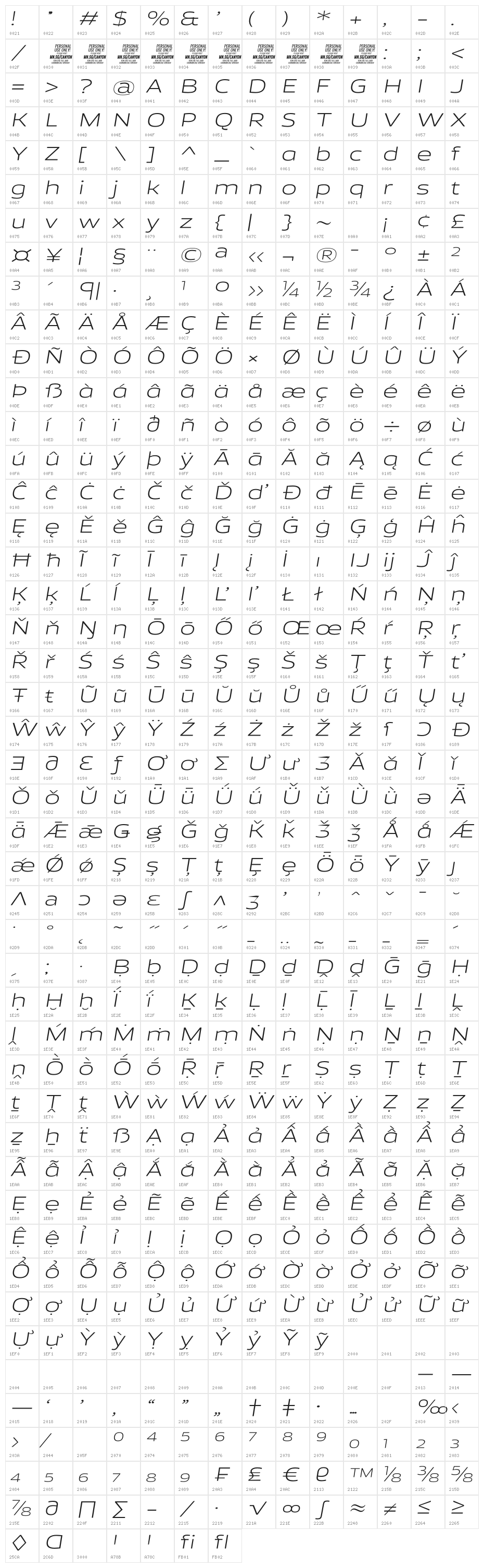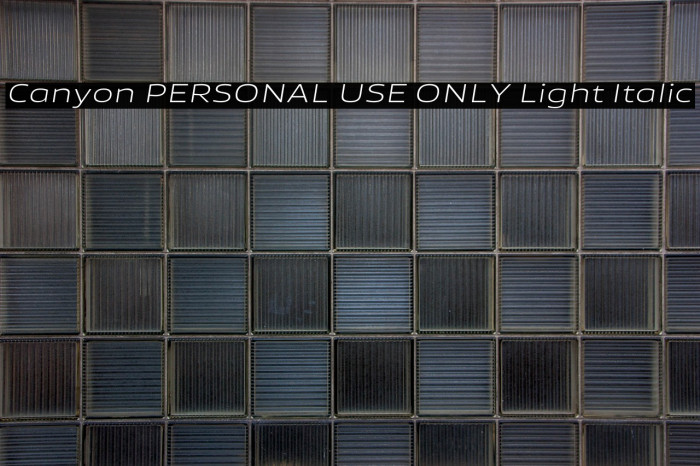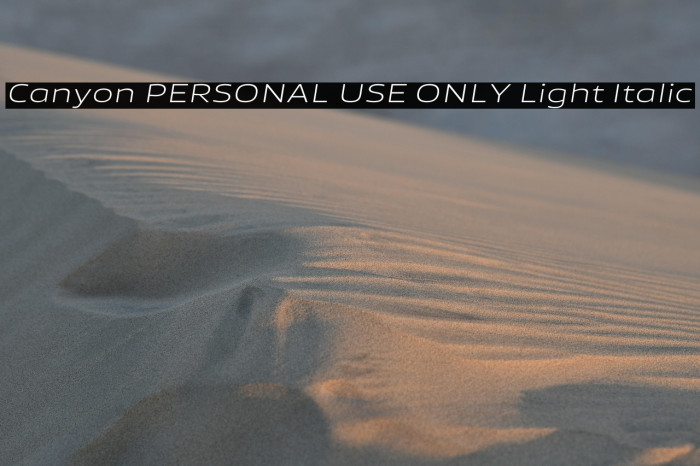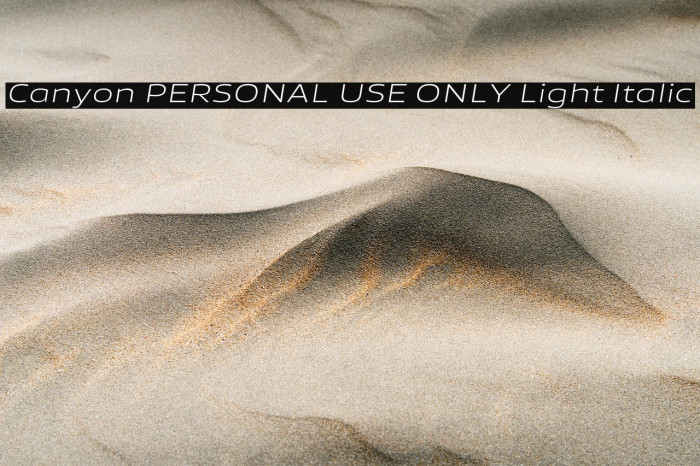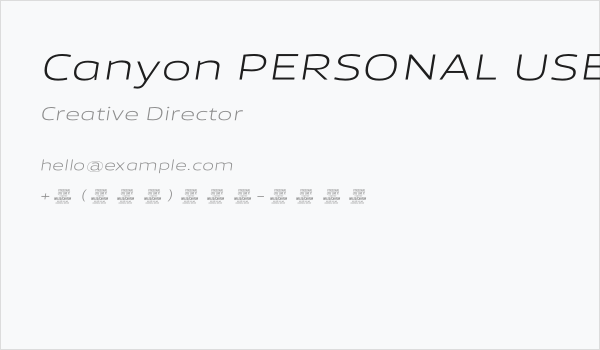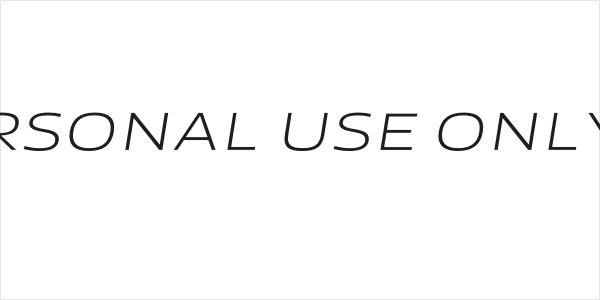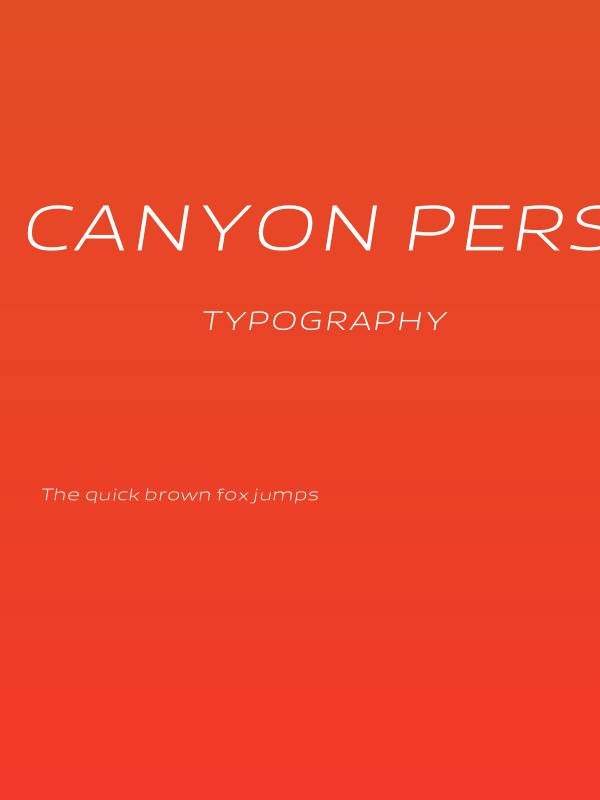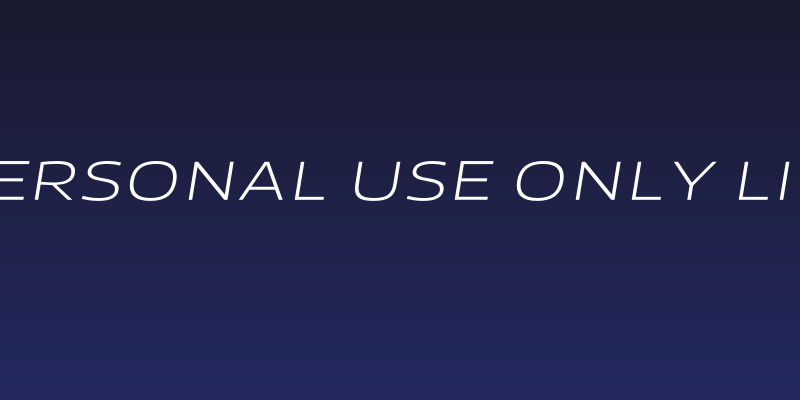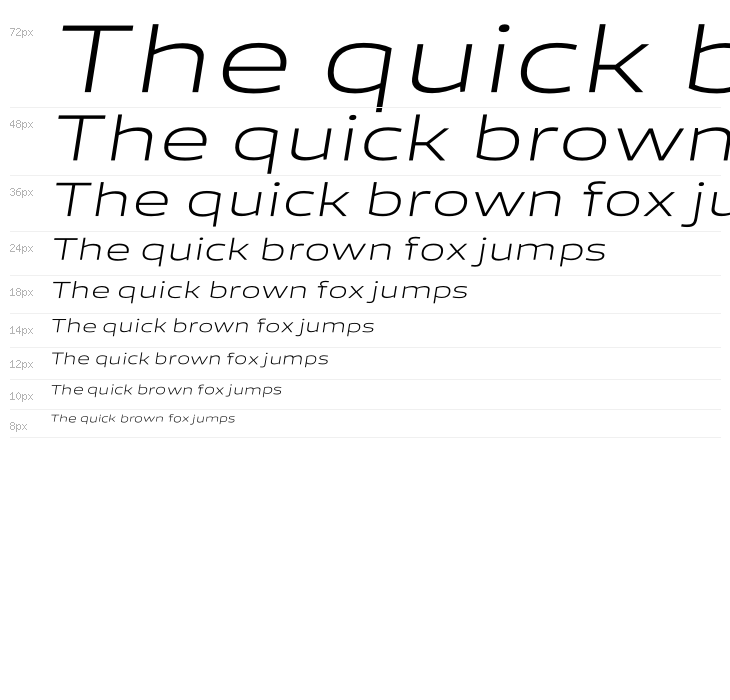
Canyon PERSONAL USE ONLY Light Italic Font
Canyon PERSONAL USE ONLY Light Italic Description
This font features a sleek and modern design with a light and elegant touch. The characters are slightly italicized, giving them a dynamic and forward-leaning appearance. The strokes are thin and consistent, providing a clean and sophisticated look. The overall style is minimalistic, making it suitable for contemporary design projects. The character spacing is normal, ensuring readability while maintaining a stylish aesthetic. The font includes a full set of uppercase and lowercase letters, numbers, and a variety of special characters, making it versatile for various applications.